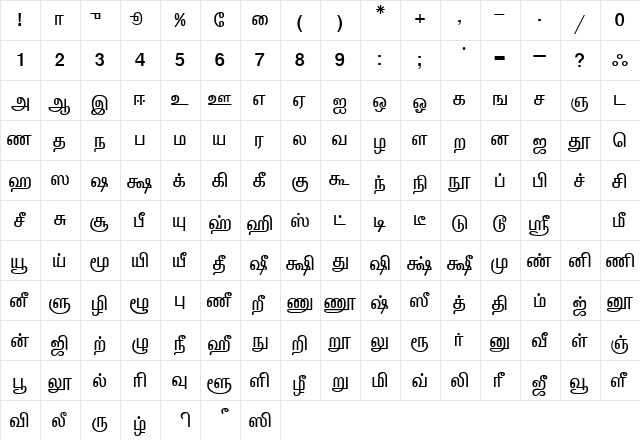
Kalki Normal Font Preview
Kalki Normal
Design Context for Kalki Typeface
Kalki is a composed and adaptable typeface that performs quietly and consistently across a wide range of design contexts.